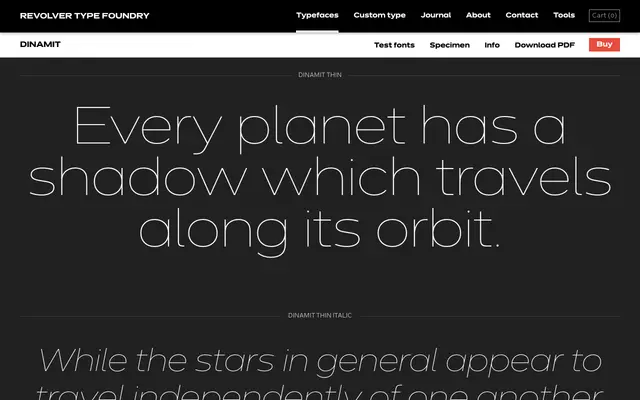
A seven-weight sans-serif family from Revolver Type Foundry, each weight accompanied by a matching italic.
Spanning Thin to Bold across seven weights, Dinamit offers a full complement of upright and italic styles suited to editorial and branding work. The family follows a straightforward grotesque structure without condensed or extended cuts, keeping the offering focused. Little biographical or historical context is provided on the page, leaving the typeface to speak through its weight range alone.
The page presents a clean, multi-weight sans-serif family with italics across a wide weight range, consistent with a contemporary grotesque or geometric sans classification.